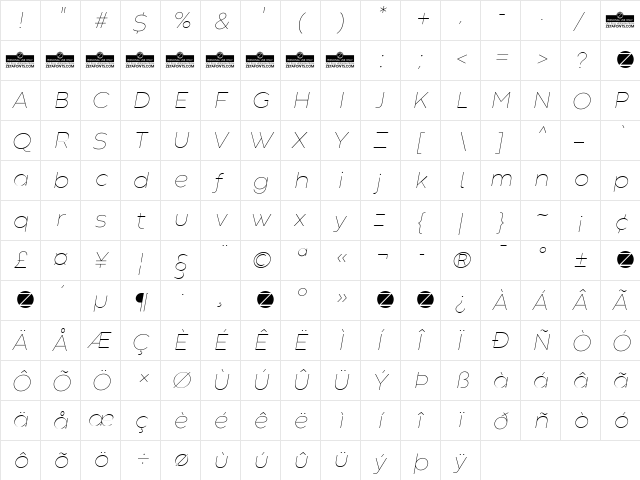
Codec Warm Trial Thin Italic Font Preview
| Foundry | Cosimo Lorenzo Pancini & Francesco Canovaro |
| Designer | Cosimo Lorenzo Pancini & Francesco Canovaro |
Design Context for Codec Warm Trial Typeface
Codec Warm Trial uses fixed-width spacing throughout, giving it the structured, systematic character associated with coding environments and technical documentation. The dynamic lean of this cut emphasises speed and emphasis in any layout. Its slender proportions lend an understated elegance to any composition.
A natural fit for code editors, technical documentation, developer-focused branding, and terminal-inspired UI.